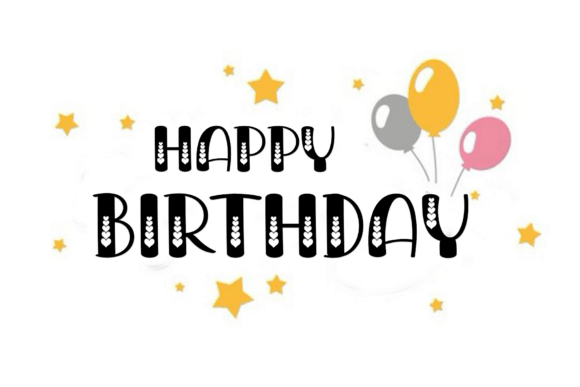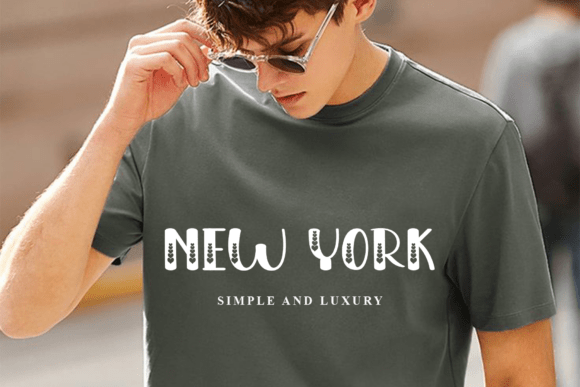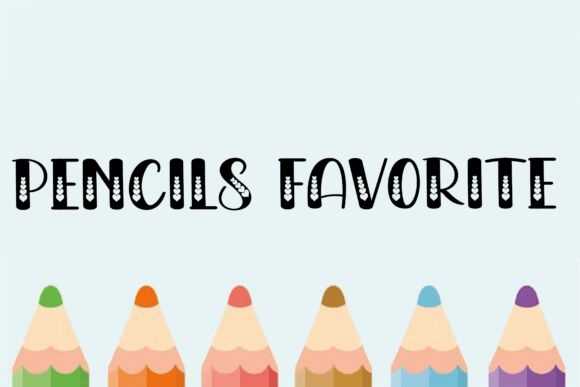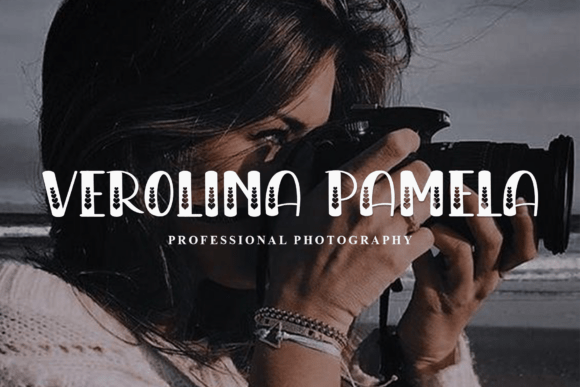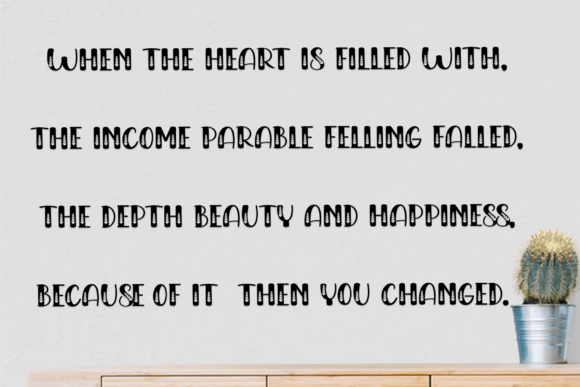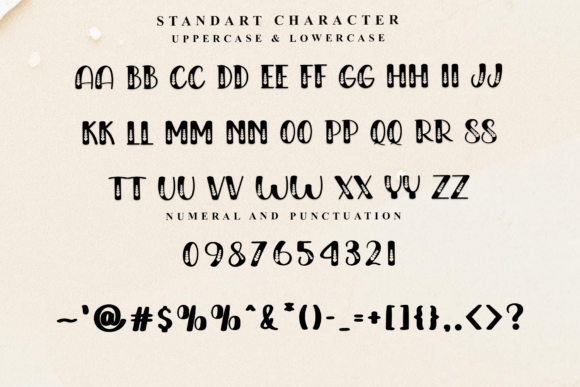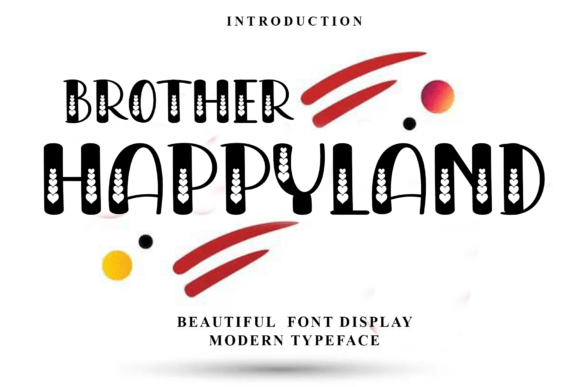
Discover the Charm of Brother Happyland Font: Elevate Your Designs with a Unique Touch
In the world of typography, fonts play a crucial role in making or breaking the visual appeal of a design. For crafters, designers, and creative enthusiasts, finding the perfect font can be a game-changer. This is where Brother Happyland Font comes into play – a beautiful, eye-catching typeface that is designed with a soft, unique touch. In this article, we’ll dive into the distinctive features of Brother Happyland Font, its versatility, and why it’s an excellent addition to your design toolkit.
The Distinctive Character of Brother Happyland Font
Brother Happyland Font stands out from the crowd with its distinctive strokes that give it a special character. The font’s unique design makes it not only aesthetically pleasing but also highly versatile for future use. Whether you’re working on a design project, crafting, or any other creative work, Brother Happyland Font is sure to make a lasting impression. Its soft and natural style appeals to a wide range of audiences across different artistic and creative fields.
A World of Characters at Your Fingertips
One of the significant advantages of Brother Happyland Font is its extensive character set. With various characters at your disposal, you can experiment with different styles and expressions, making your designs more engaging and dynamic. This feature is particularly useful for designers and crafters who want to add a personal touch to their work. From elegant and sophisticated to playful and whimsical, Brother Happyland Font offers endless possibilities.
Seamless Compatibility for Effortless Integration
Ideal for a Wide Range of Products and Projects
The natural font style of Brother Happyland makes it an ideal choice for a wide range of products and projects. From branding and advertising to packaging and digital media, this font can elevate your designs and make them more appealing to your target audience. Its versatility also makes it suitable for various creative fields, including:
- Graphic Design: Add a touch of elegance and sophistication to your graphic designs.
- Crafting: Create beautiful and unique crafts that stand out from the crowd.
- Digital Art: Bring your digital art to life with the soft and natural style of Brother Happyland Font.
- Branding and Advertising: Establish a strong brand identity with a font that exudes charm and character.
Why Choose Brother Happyland Font?
So, why should you choose Brother Happyland Font for your design projects? Here are a few compelling reasons:
- Unique and Eye-Catching: Brother Happyland Font is designed to grab attention and make a lasting impression.
- Versatile: The font’s distinctive strokes and soft style make it suitable for a wide range of design projects and creative fields.
- Extensive Character Set: With various characters at your disposal, you can experiment with different styles and expressions.
- Seamless Compatibility: Brother Happyland Font is compatible with a wide range of applications, including Windows and open-source platforms.
In conclusion, Brother Happyland Font is a beautiful and eye-catching typeface that can elevate your designs and make them more appealing to your target audience. Its unique and distinctive character, extensive character set, and seamless compatibility make it an excellent addition to your design toolkit. Whether you’re a designer, crafter, or creative enthusiast, Brother Happyland Font is sure to inspire and bring your creative vision to life.
So, what are you waiting for? Discover the charm of Brother Happyland Font and take your designs to the next level. With its soft and natural style, this font is sure to become a staple in your design workflow.